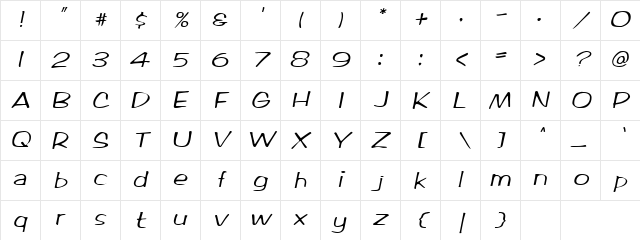
Iambus Oblique
Design Context for Iambus
Iambus is a composed and adaptable typeface that performs quietly and consistently across a wide range of design contexts. The slanted form adds forward momentum and visual energy.
Pro Tip: Use Iambus for emphasis, pull quotes, and subheadings where its slanted energy can add rhythm to the layout.